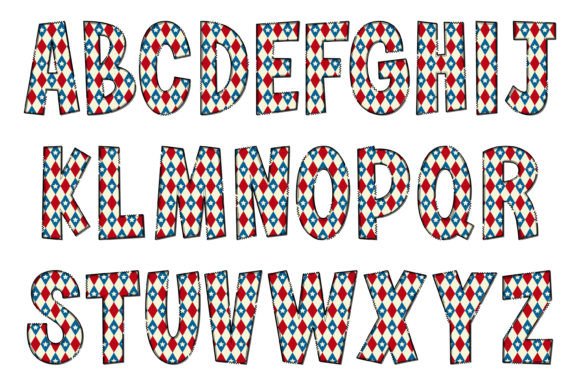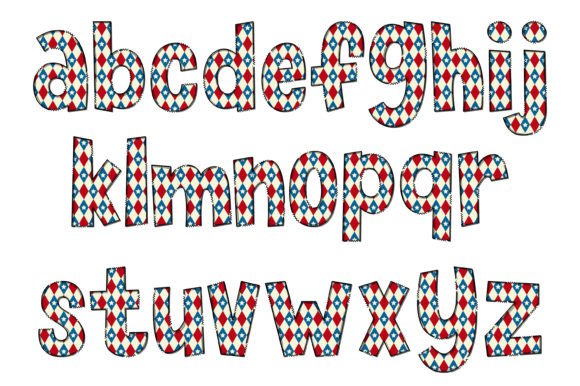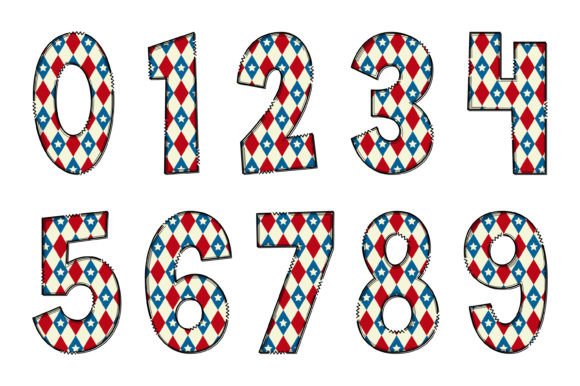
Introduction to Patriotism Font
Do you remember the excitement of creating your first DIY craft project as a child? The feeling of freedom to express yourself and bring your imagination to life? For designers, that sense of creative freedom is just as valuable today, and that’s where the Patriotism Font comes in.
This charming, whimsical font is more than just a design element – it’s a key to unlocking a playful and artistic feel in your creative projects. From children’s books to posters, invitations, and greeting cards, the Patriotism Font is the perfect addition to any design resource. With its high-quality, transparent background and compatibility with popular design software, this font is a must-have for any designer looking to add a touch of whimsy to their work.
Patriotism Font Key Features
- High-Quality Typography: The Patriotism Font is designed with a focus on high-quality typography, making it perfect for any creative project that requires a premium look.
- Transparent Background: This font features a transparent background, allowing you to easily combine it with any design or image, giving you more flexibility in your design resource.
- Large Character Set: The Patriotism Font includes a large character set, including uppercase and lowercase letters, numbers, and punctuation marks, making it suitable for a wide range of creative projects.
- Resolution: 300 DPI: The font is designed at a high resolution of 300 DPI, ensuring that it looks crisp and clear in both digital and print applications.
Honest Review: Patriotism Font
I recently came across the Patriotism Font, and I’m excited to share my thoughts on this design resource. I downloaded it for a creative project and was impressed by its high quality and versatility.
- ✨ Unique and bold design that’s perfect for patriotic-themed projects
- ✨ Highly legible, making it great for both digital and print use
- ✨ Transparent background, allowing for seamless integration with any design
- ⚠️ Limited font sizes and styles, which might be a drawback for more complex projects
- ⚠️ Not ideal for projects that require a more subtle, understated design approach
Overall, I’m impressed with the Patriotism Font and would recommend it to designers looking for a bold and eye-catching font for their next creative project. Its high quality and free download make it a valuable addition to any design resource library.
Tips for Getting the Most Out of the Patriotism Font
Use the font with a transparent background to create a clean and modern design. Experiment with different font sizes and styles to add emphasis to your text. You can also use the font in combination with other design resources, such as images and icons, to create a visually appealing design.
The Patriotism Font is ideal for various design projects, including patriotic-themed designs, holiday cards, and promotional materials. You can also use the font to add a touch of patriotism to your designs, such as logos, banners, or social media graphics.